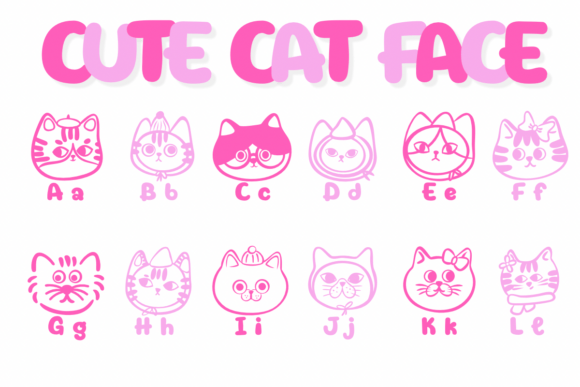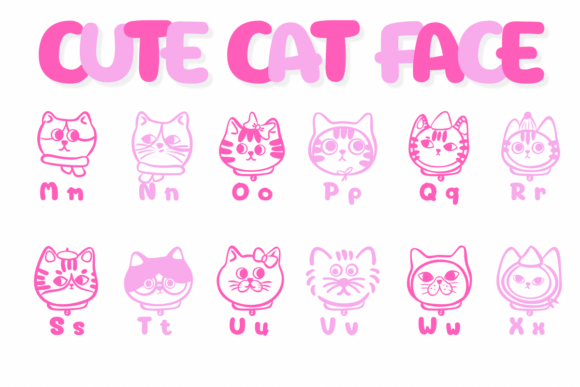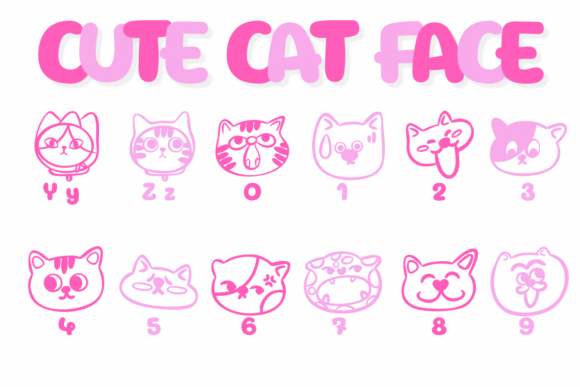
Introduction to Cute Cat Face Font
Cute Cat Face is a dingbats font with theme a sweet theme.
This font can enhance your creative projects such as wedding invitations, DIY, crafts, decorations, logos, and many other creative ideas .
Why Choose Cute Cat Face Font?
Cute Cat Face Font offers exceptional quality and versatility, making it a valuable addition to your design toolkit. Whether you’re creating for personal projects or commercial use, Cute Cat Face Font delivers professional results.